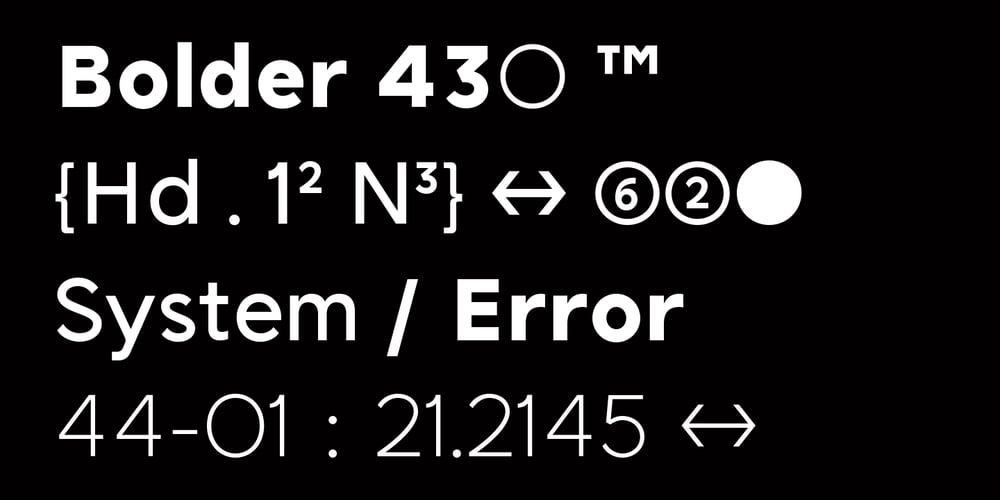
TG Aqsa Grotesque Pro Font Family was designed by Iqbal Firdaus and published by Tegami Type. TG Aqsa Grotesque Pro contains 6 styles and family package options. TG Aqsa Grotesque Pro is the latest version of the font that was previously released in 2017, TG Aqsa Grotesque. In this latest version there are several optical fixes on each glyphs. In this latest version also added 2 new weights namely black and ultra black so that TG Aqsa Grotesque Pro has 6 fonts of different weights. Still maintaining the sans serif grotesque style coupled with the improvement of the letter form make TG Aqsa Grotesque Pro have a good level of readability when applied as a body text. And this version also has extended latin which will support more than 90+ different languages.